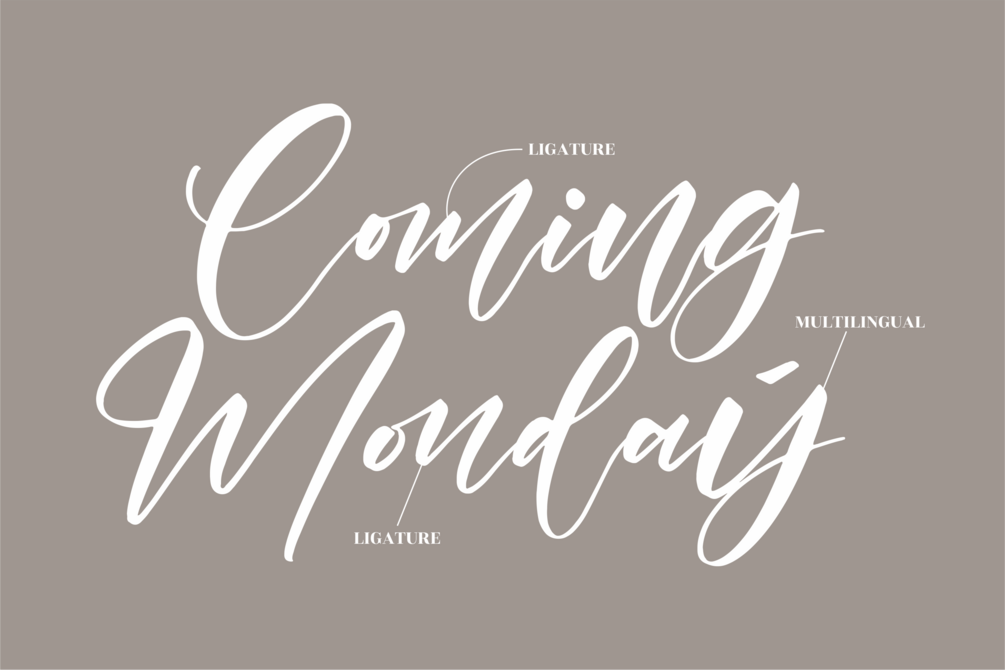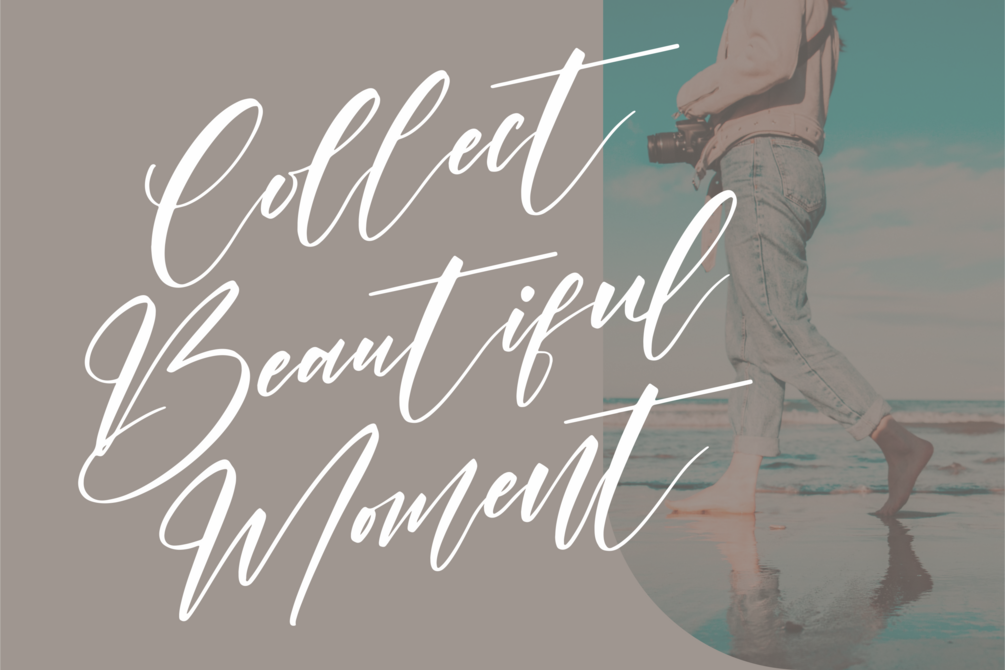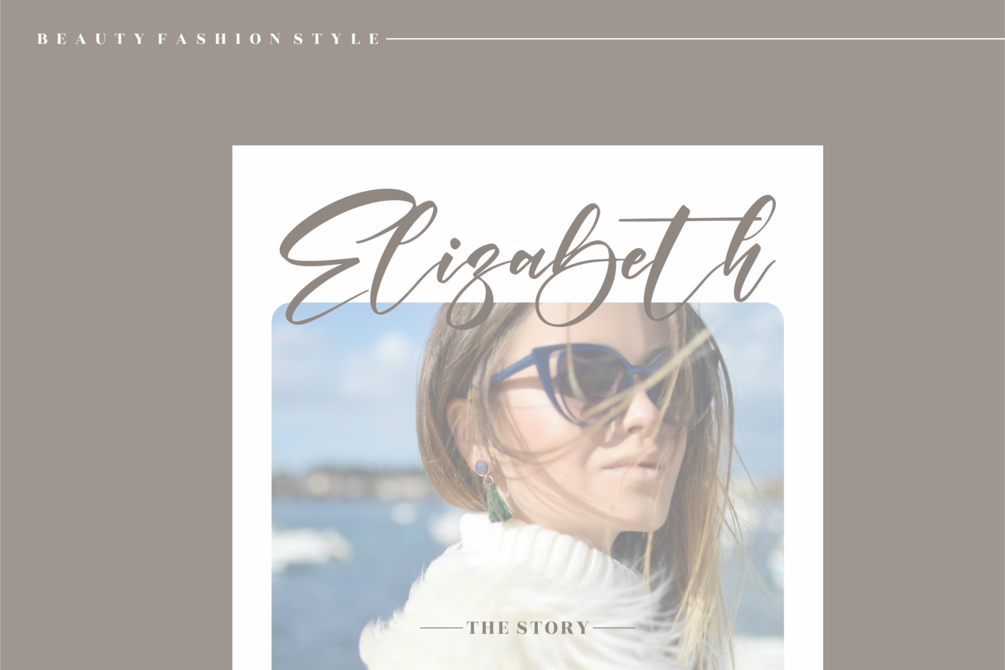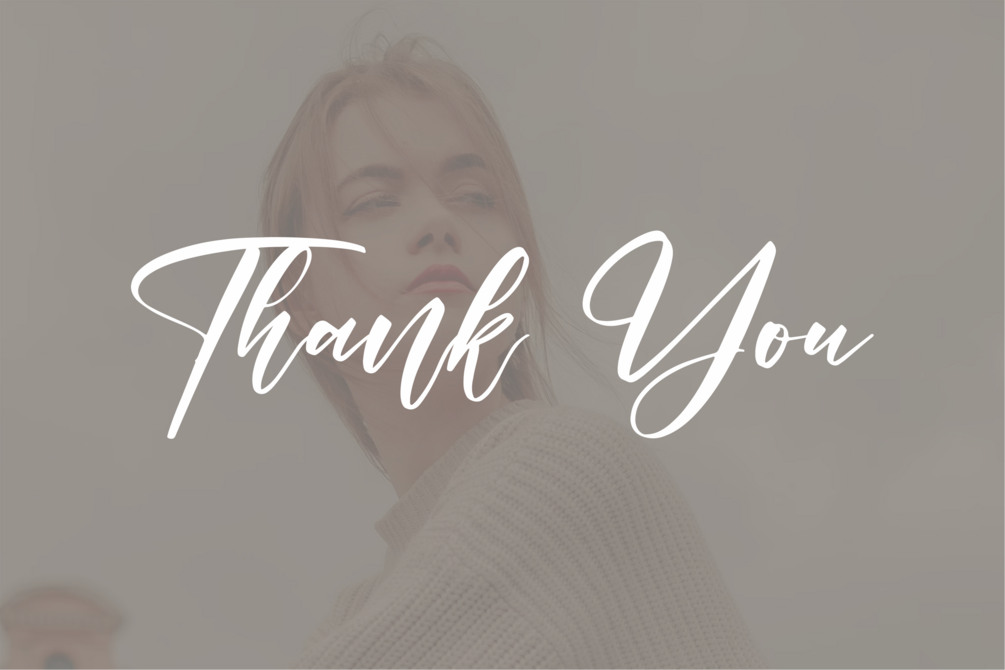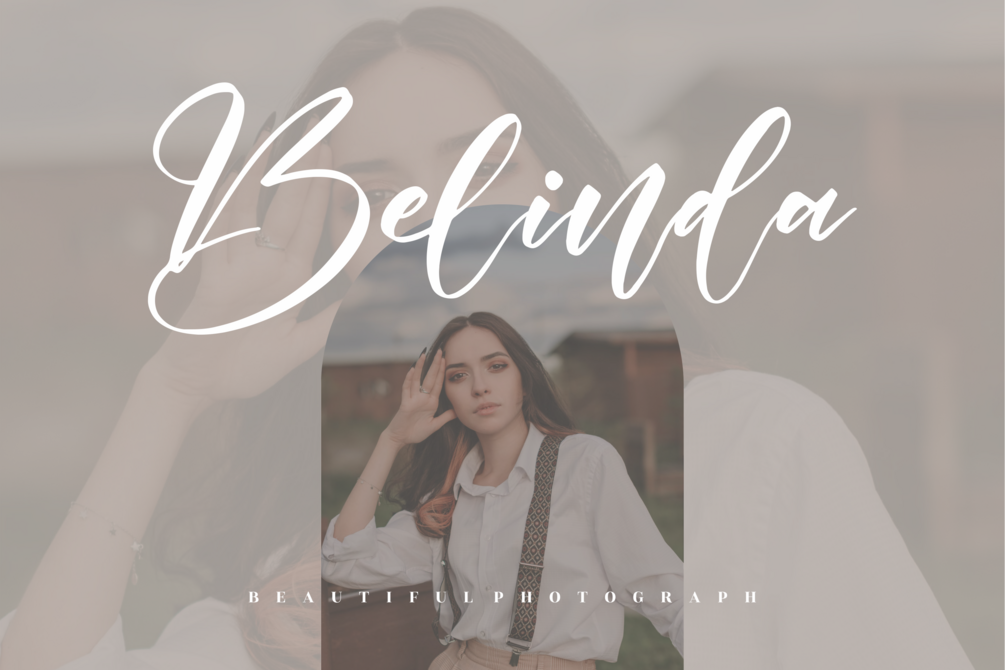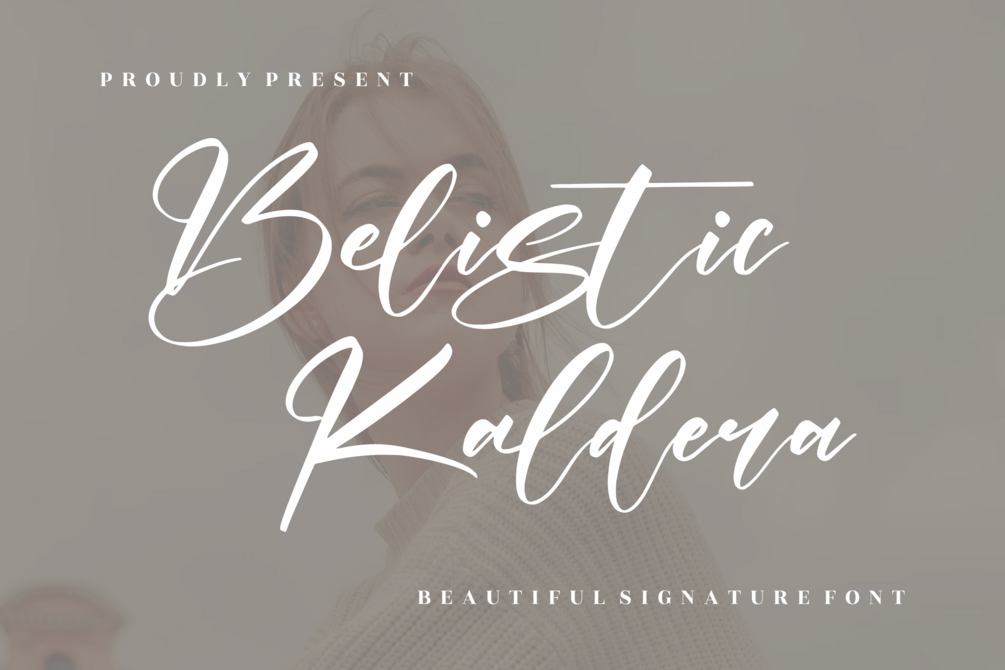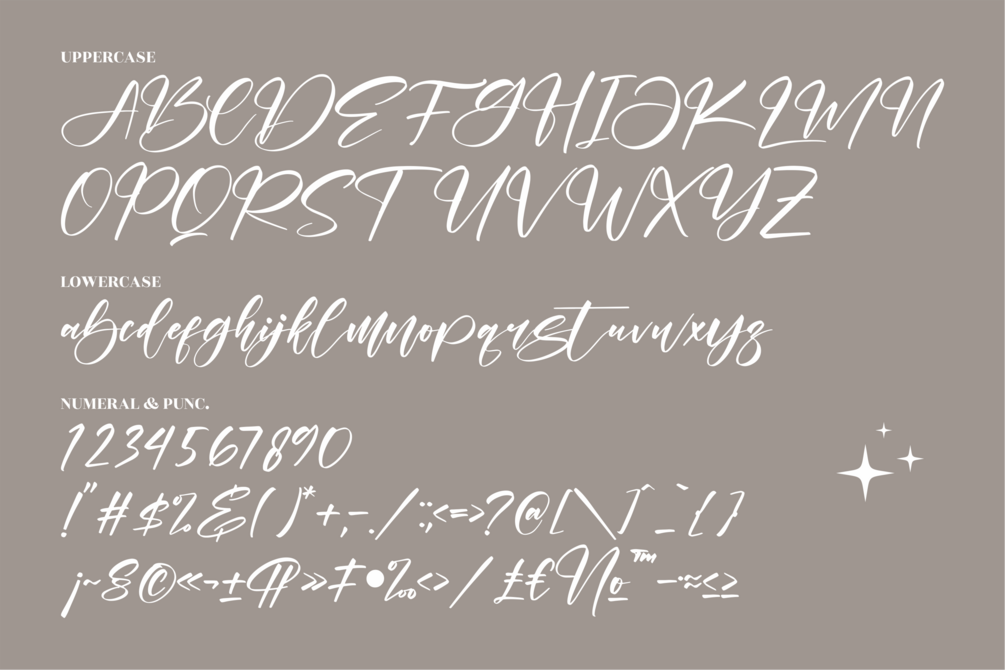
Belistic Kaldera - Beautiful Signature Font
Belistic Kaldera - Beautiful Signature Font, from Letternity Studio, is a beautiful script font, suitable for any projects such as: logos, branding projects, homeware designs, product packaging, mugs, quotes, posters, shopping bags, t-shirts, book covers, name card, invitation cards, greeting cards, label, photography, watermark, special events, and all your other lovely projects that need a beautiful script taste.
Ligature, Alternate & Swashes